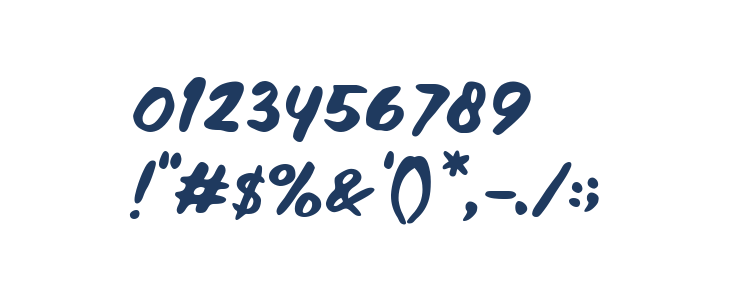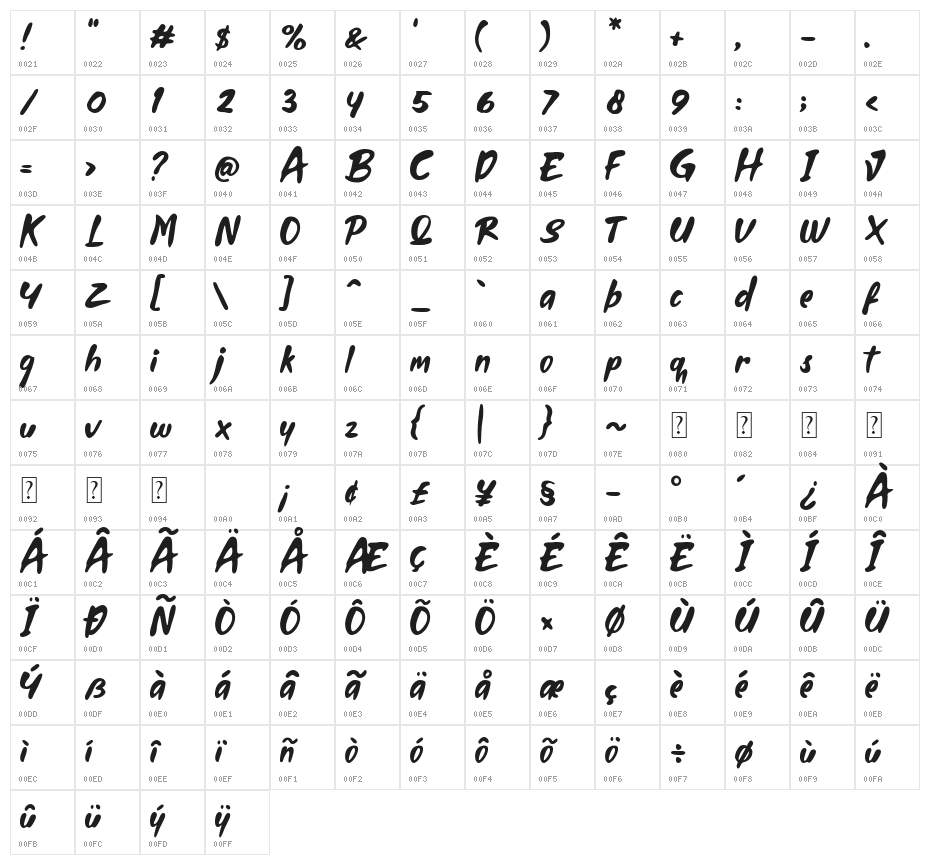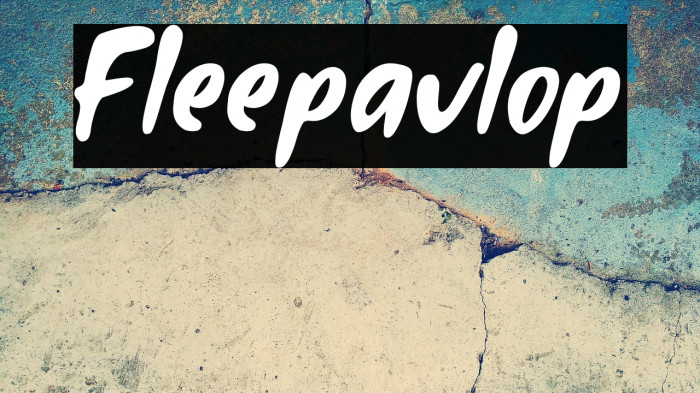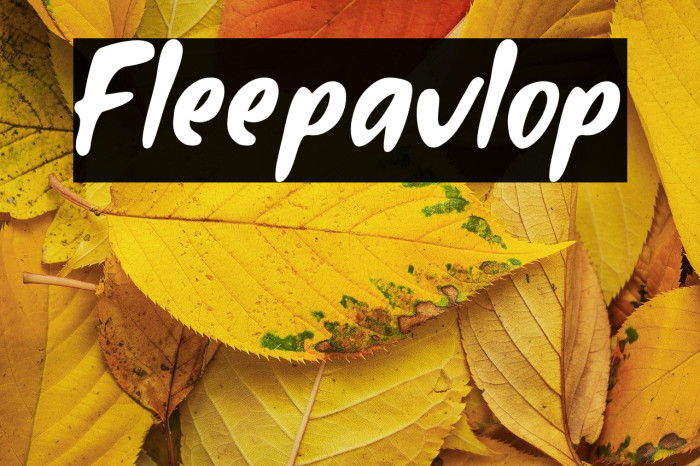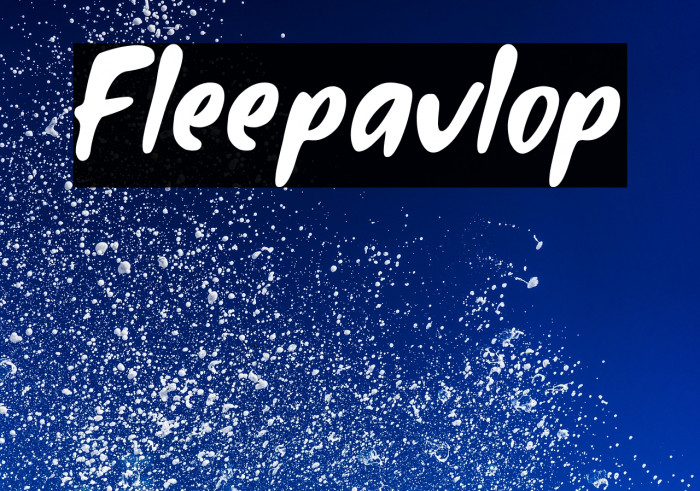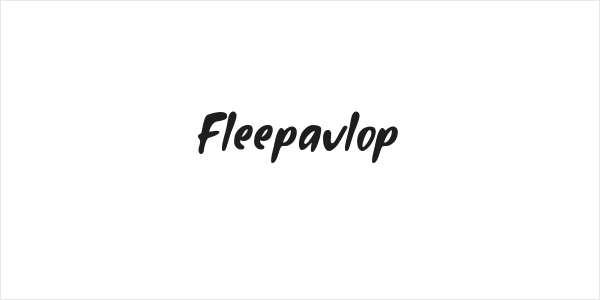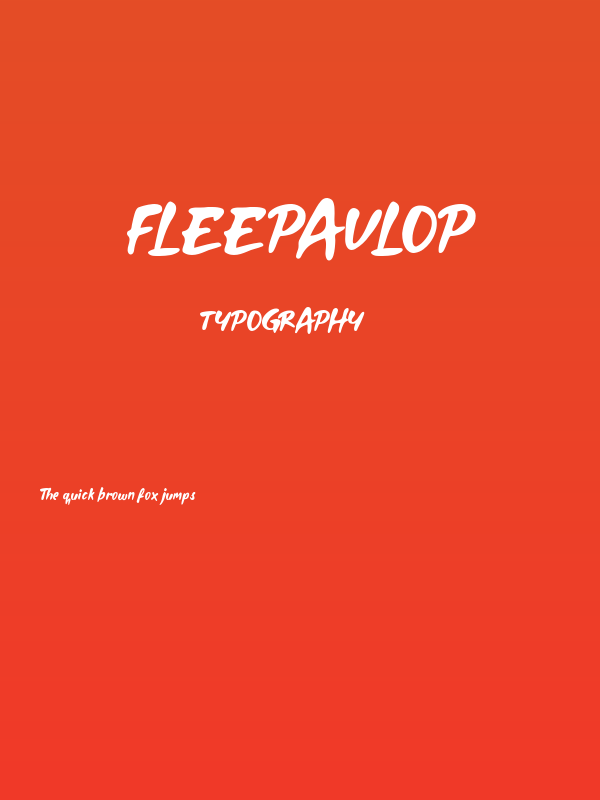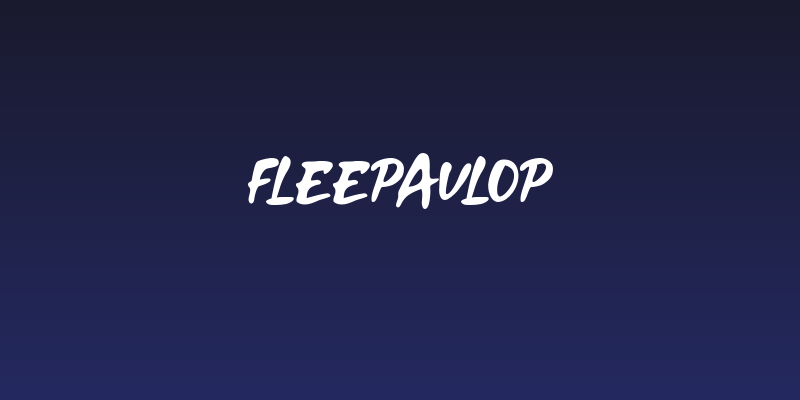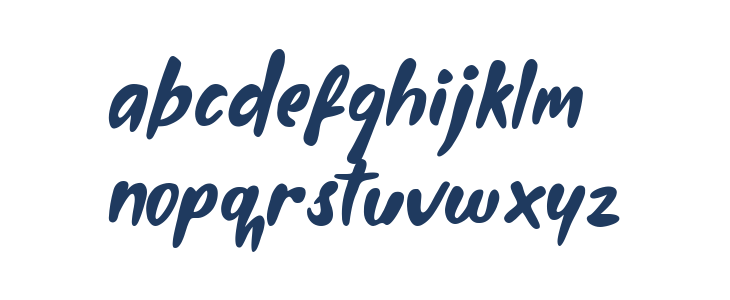
Fleepavlop Font
Fleepavlop Description
This font features a bold, handwritten style with a playful and energetic appearance. The characters are slightly slanted, giving a dynamic and informal feel. The strokes are thick and consistent, providing a strong visual impact. The uppercase and lowercase letters maintain a cohesive look, with rounded edges and smooth curves. Numbers and special characters are designed to match the overall style, ensuring uniformity across all elements. This font is ideal for projects that require a personal touch or a casual, friendly vibe.
| Proposed Projects | Ideal for greeting cards, posters, social media graphics, and branding materials that require a personal and informal touch. |